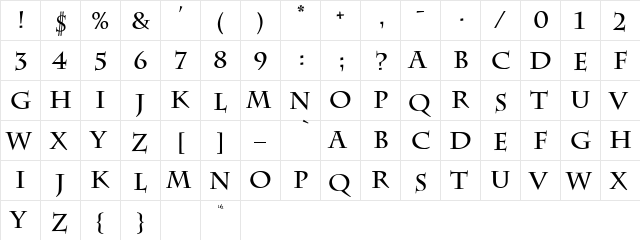
Empire Bold
Design Context for Empire Typeface
Empire offers clean, dependable letterforms without strong stylistic allegiance, making it a practical choice for designers who need flexibility. The heavy weight commands attention and anchors typographic hierarchies.
Pro Tip: Use Empire in both headline and body roles to test its range before committing to a single application.